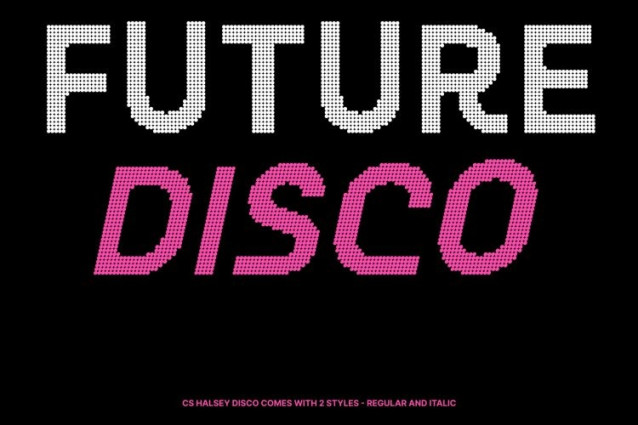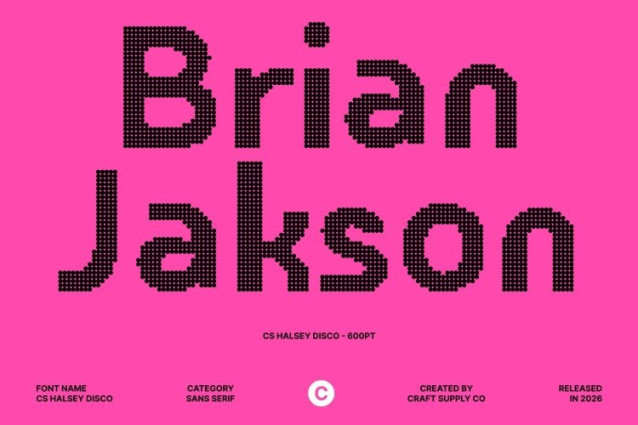
CS Halsey Disco Font
CS Halsey Disco Font This is a modern sans serif font designed for today’s creative landscape, combining minimalist clarity with a subtle disco-inspired attitude. Its clean structure ensures excellent readability on screen and in print, while the disco touch introduces a lively, confident tone that feels fresh, stylish, and current.
Versatile Design with Energetic Rhythm
Built for versatility, this font adapts effortlessly across branding, editorial layouts, web design, and digital interfaces. Its balanced proportions and smooth letterforms maintain clarity in body text, while the disco influence adds a sense of motion and visual rhythm like typography illuminated by soft, moving lights.
Professional Look with a Modern Festive Edge
This font delivers a professional and contemporary impression, enhanced by a discreet festive glow. It feels polished and reliable, yet never flat or rigid. Perfect for modern brands, creative studios, and digital products that want to communicate trust while embracing modern energy and visual excitement.
Optimized for Modern, Digital-First Applications
Crafted to perform beautifully in modern environments, this font blends functionality with style. From digital platforms to print materials, it enhances visual impact without sacrificing readability. The result is a clean, modern sans serif that feels confident, dynamic, and subtly inspired by the rhythm of contemporary nightlife.
| Designer Name: | Craft Supply Co. |